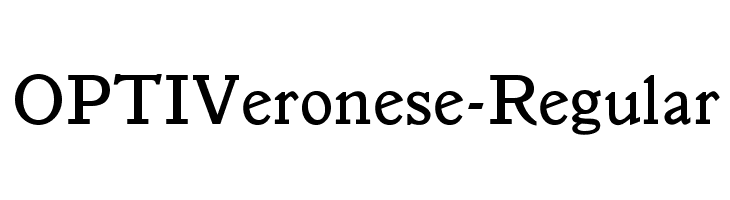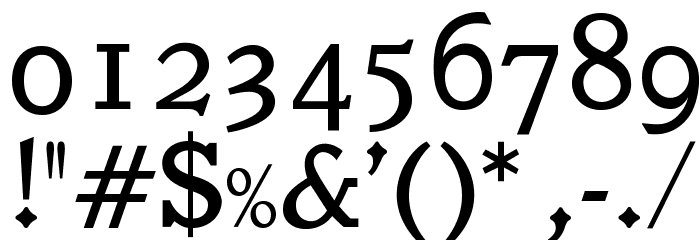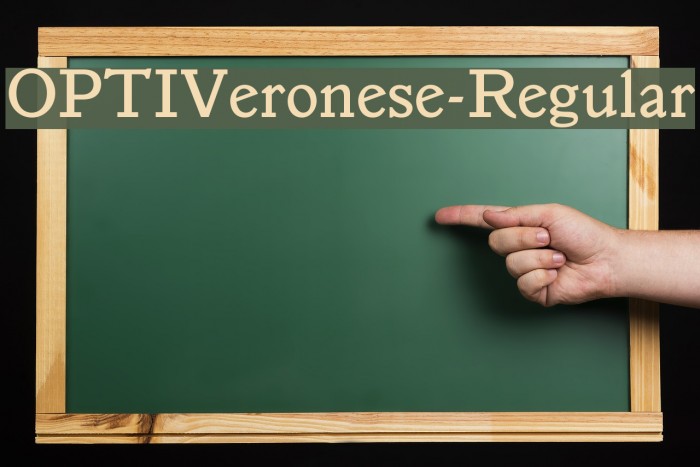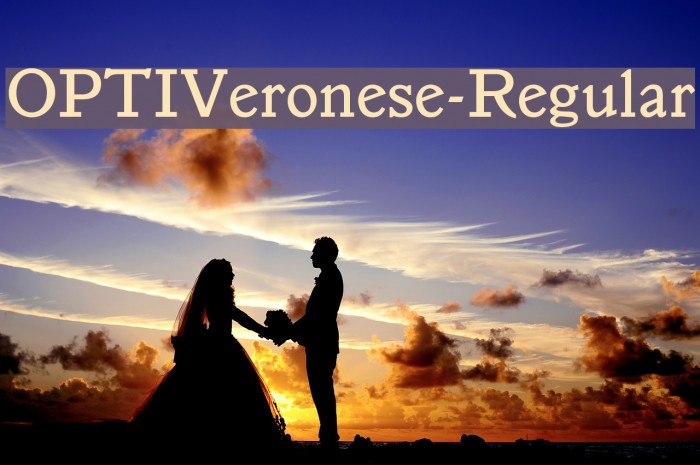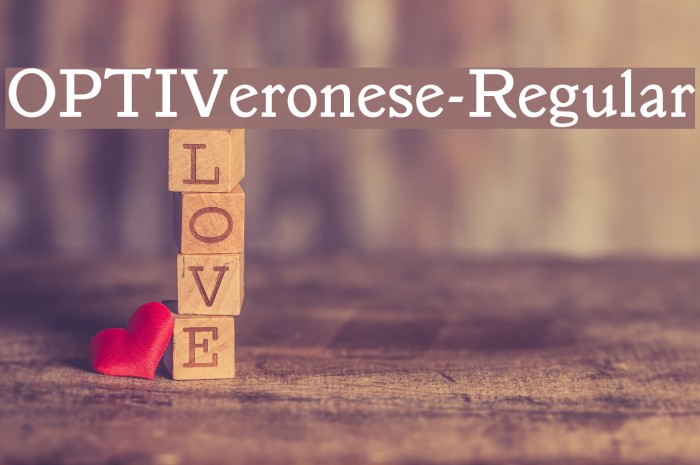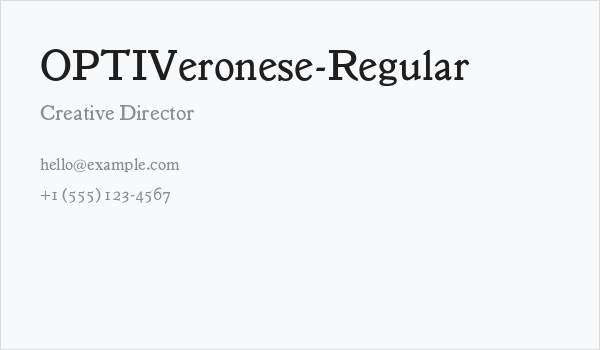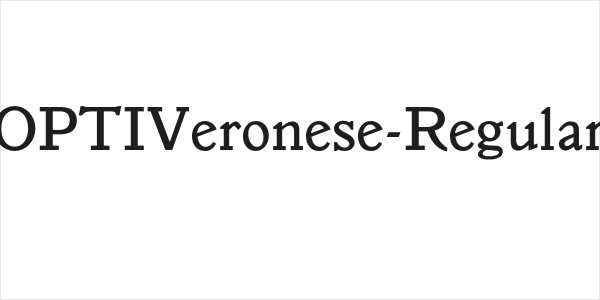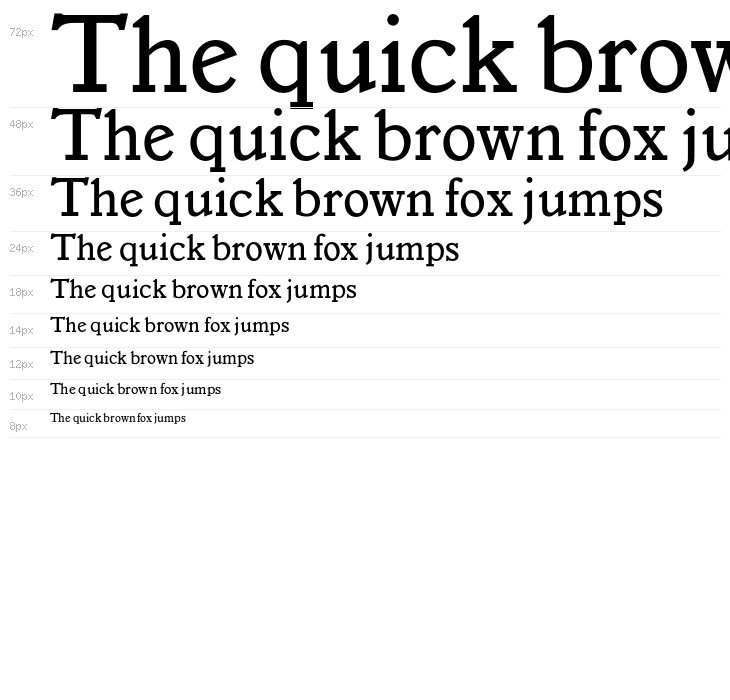
OPTIVeronese-Regular Font
OPTIVeronese-Regular Description
This font exhibits a classic serif style with a refined and elegant appearance. The characters are well-proportioned, featuring distinct serifs that add a touch of sophistication. The uppercase letters are bold and commanding, while the lowercase letters maintain a harmonious balance. The numerals are clear and easily distinguishable, making them suitable for various applications. Special characters are thoughtfully designed, ensuring consistency across the typeface. The overall design is timeless, making it versatile for both traditional and modern projects.
| Use Case | Body text, Headlines, Editorial design |
| Proposed Projects | Ideal for book typesetting, formal invitations, branding materials, and editorial design. |